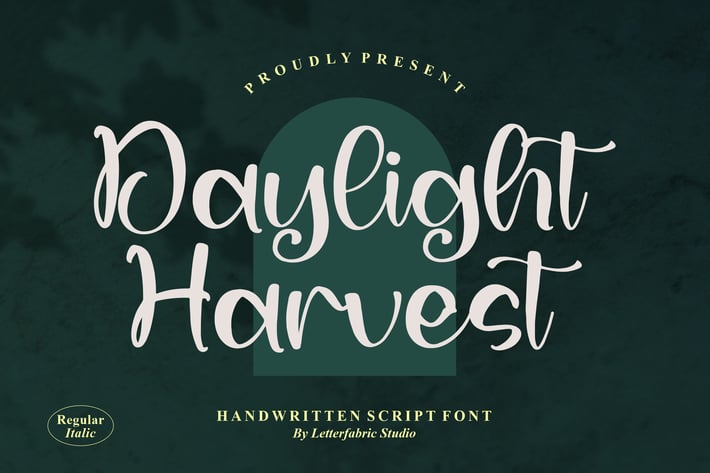
Daylight Harvest Handwritten Font
Daylight Harvest is a beautiful handwritten script font that radiates warmth, creativity, and authenticity. With its fluid strokes and charming letterforms, this font perfectly captures the essence of modern calligraphy. It’s designed to add a personal and heartfelt touch to your projects — from invitations and branding to quotes and social media posts.
This font combines elegance with a natural handwritten feel, making it ideal for projects that need both sophistication and friendliness.
Handwritten script style
Regular & Italic versions
Uppercase & lowercase characters
Numerals, punctuation & ligatures
Branding & logo design
Wedding invitations
Greeting cards
Social media content
Packaging & label design
Inspirational quotes
Lifestyle & fashion projects
Bring warmth and elegance to your designs with Daylight Harvest — a handwritten script font crafted for beauty, balance, and authenticity.